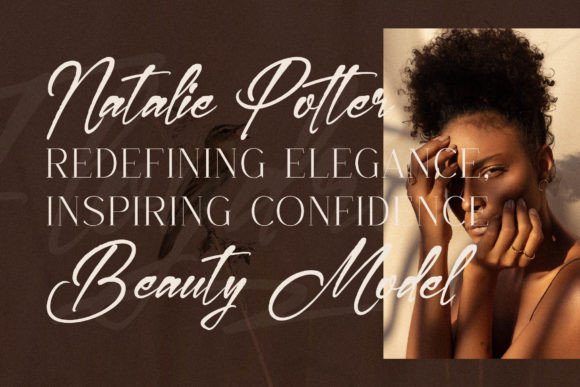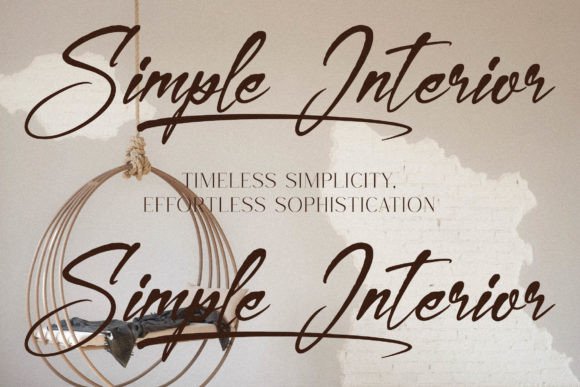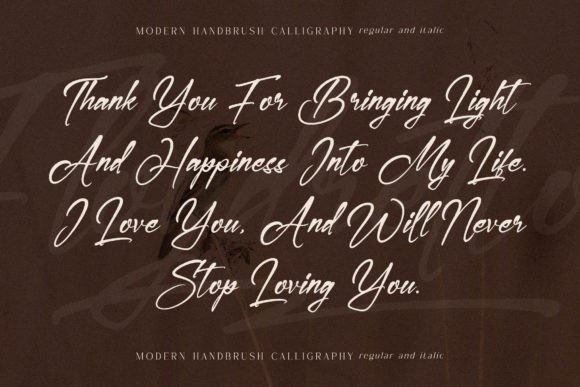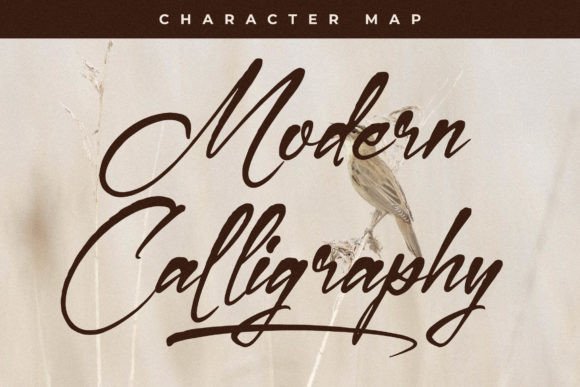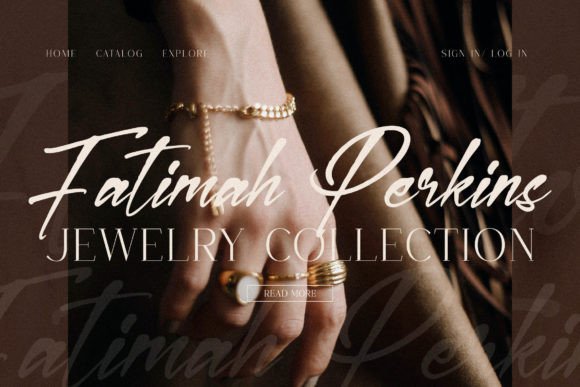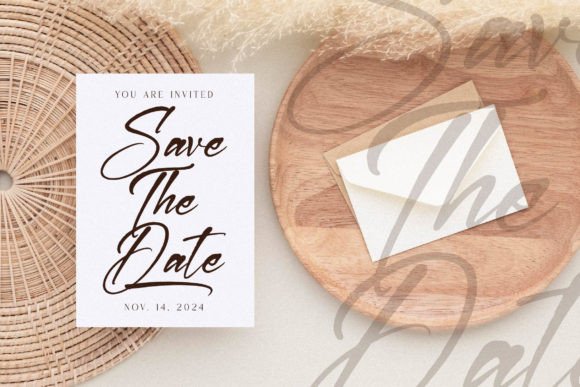
Introduction to Floydretton Font
Have you ever stared at a blank page, trying to bring a creative project to life, only to be stuck by the fear of choosing the perfect font? I know I have. But what if I told you that there’s a font that could transform your ideas into stunning visuals, effortlessly elevating your designs to the next level? Enter the Floydretton Font, a modern handbrush calligraphy masterpiece from the talented team at Glorytype Studio.
As a valuable resource for designers, the Floydretton Font offers unparalleled flexibility and style, making it perfect for a wide range of creative projects. Whether you’re crafting logos, branding materials, or even homeware designs, this font’s high-quality script is sure to leave a lasting impression. Plus, its transparent background feature makes it easy to layer and customize, giving you complete control over your design.
Key Features of Floydretton Font
- High-quality design resource ideal for creative projects with a transparent background, making it perfect for overlaying on images or videos.
- Features a unique and stylish design, perfect for adding a touch of sophistication to any creative project.
- Designed to be highly legible, even at small font sizes, ensuring your message is conveyed clearly and effectively.
- Includes a comprehensive character set, including international characters and symbols, making it a versatile design resource.
Honest Review: Floydretton Font
I recently stumbled upon the Floydretton Font and I must say it’s a hidden gem for designers. As a creative project enthusiast, I’m always on the lookout for high-quality design resources to elevate my work. This font definitely delivers.
What works well: ✨ The transparent background of this font makes it incredibly versatile, allowing me to use it for a wide range of creative projects. The clean and modern design also makes it a great addition to any design portfolio. Additionally, the free download option is a huge plus, making it accessible to designers of all levels.
- Transparent background for versatile use
Limitations: ⚠️ While the Floydretton Font is a great addition to any design library, it’s worth noting that it may not be suitable for all projects. The modern design may not be the best fit for more traditional or formal projects. Additionally, some users may find the transparent background to be a bit distracting in certain contexts.
Overall, I’m thoroughly impressed with the Floydretton Font and would highly recommend it to designers looking for a high-quality, versatile font for their creative projects.
Floydretton Font
The Floydretton Font is a high-quality design resource ideal for creative projects. Its unique style and versatility make it a valuable asset for designers and artists. With a transparent background, this font is perfect for adding a touch of sophistication to your designs.
To get the most out of the Floydretton Font, experiment with different font sizes, colors, and styles. Combine it with other design elements to create a unique and eye-catching design.
The Floydretton Font is perfect for various creative projects, including:
- Typography
- Branding